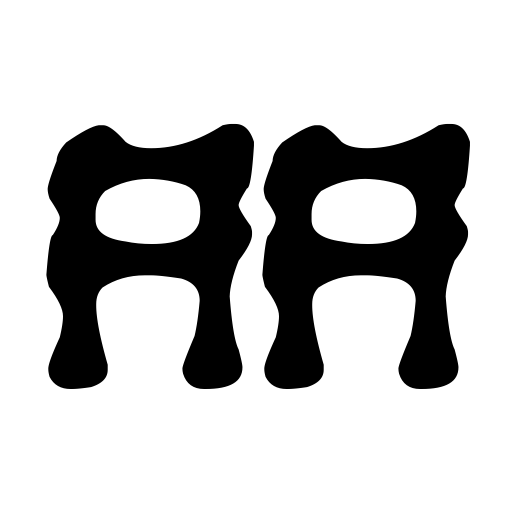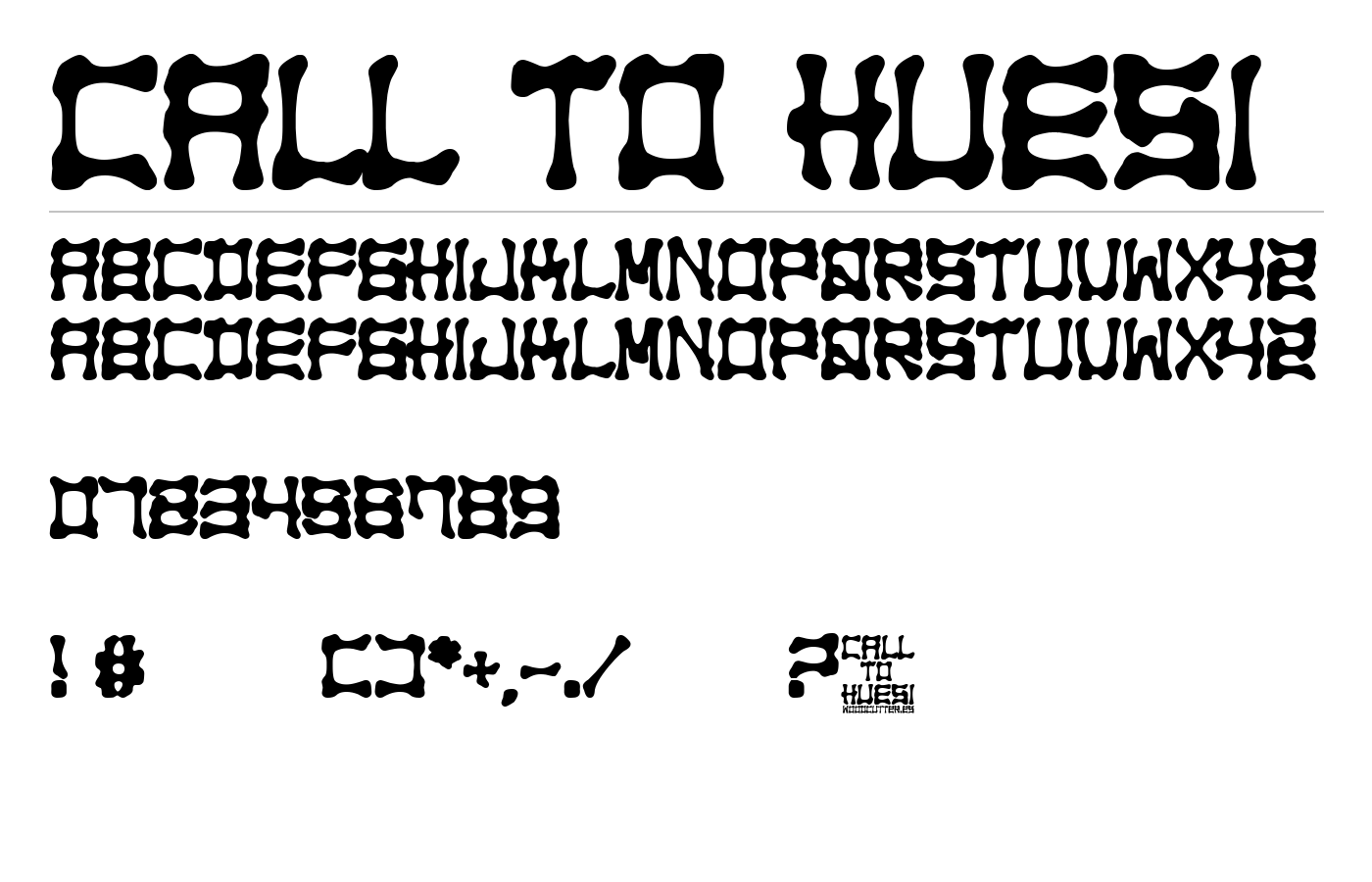
Call to Huesi is a bold, condensed display font with a playful and organic feel, featuring thick, irregular strokes that give it a hand-crafted, almost liquid texture. Its unique, quirky shapes and high contrast within each letter make it perfect for standout headlines, creative branding, or eye-catching posters where a fun, unconventional vibe is desired. This font works best in designs that seek to convey energy and creativity rather than formal or traditional tones.
Call to Huesi Font
About Call to Huesi Font